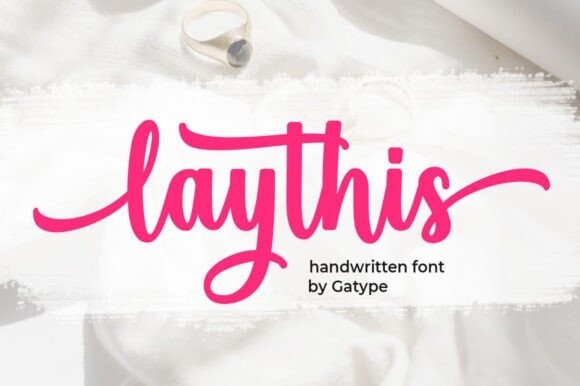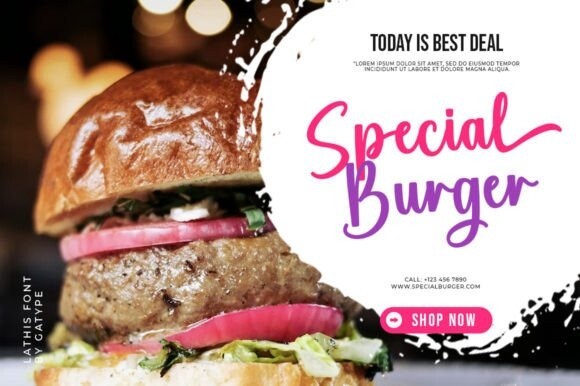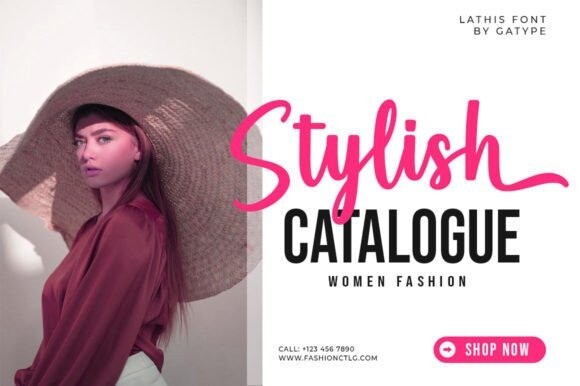
Laythis Font
Laythis – Modern Signature Font. It comes with an elegant and modern style that is perfect for making any design stand out! This font is perfect for branding, wedding invitations, magazines, mugs, business cards, quotes, posters and more.